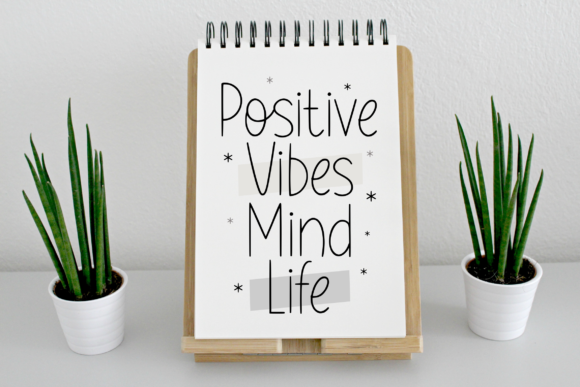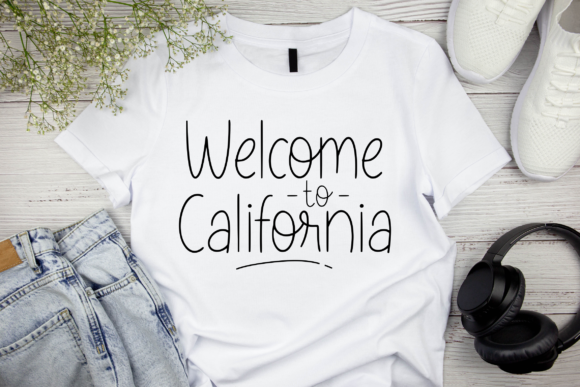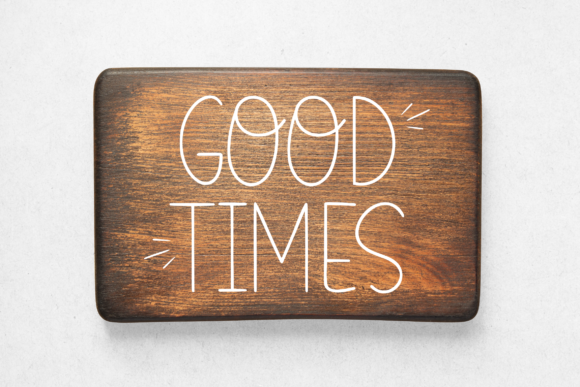
Introduction to Historyline Font
Historyline is a thin lettered and delicate script font.
It has a clean, thin and smooth vibe and it will be a hit for any design that you want to add it to .